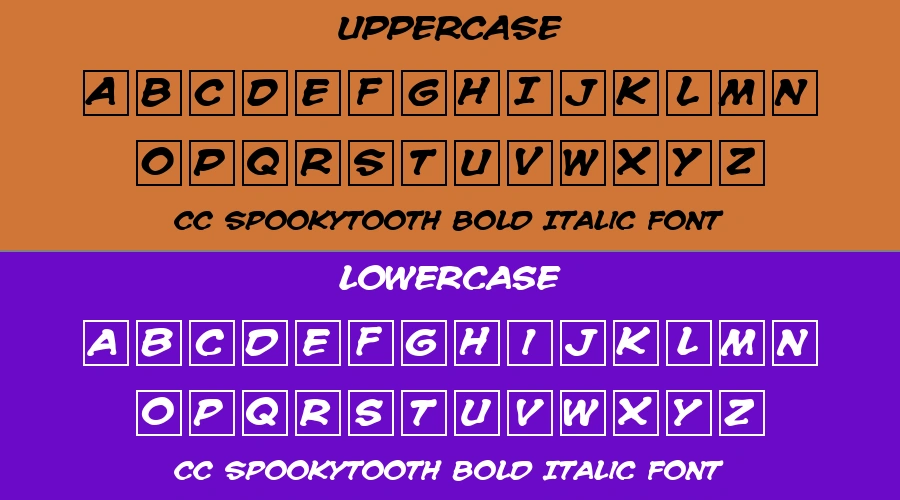
About CC Spookytooth Bold Italic Font
CC Spookytooth Bold Italic Font embodies typographic excellence through its masterful combination of contextual swashes and originality. Created for environmental graphics, this typeface delivers exceptional authenticity and user trust across all applications. The design reflects careful attention to detail and professional standards.
Advanced capabilities include distinctive alternates and versatile automatic fractions, giving designers creative control. When used in certification marks, CC Spookytooth Bold Italic Font exhibits remarkable small cap rendering. The harmonious balance between stroke contrast and design philosophy sets this typeface apart.